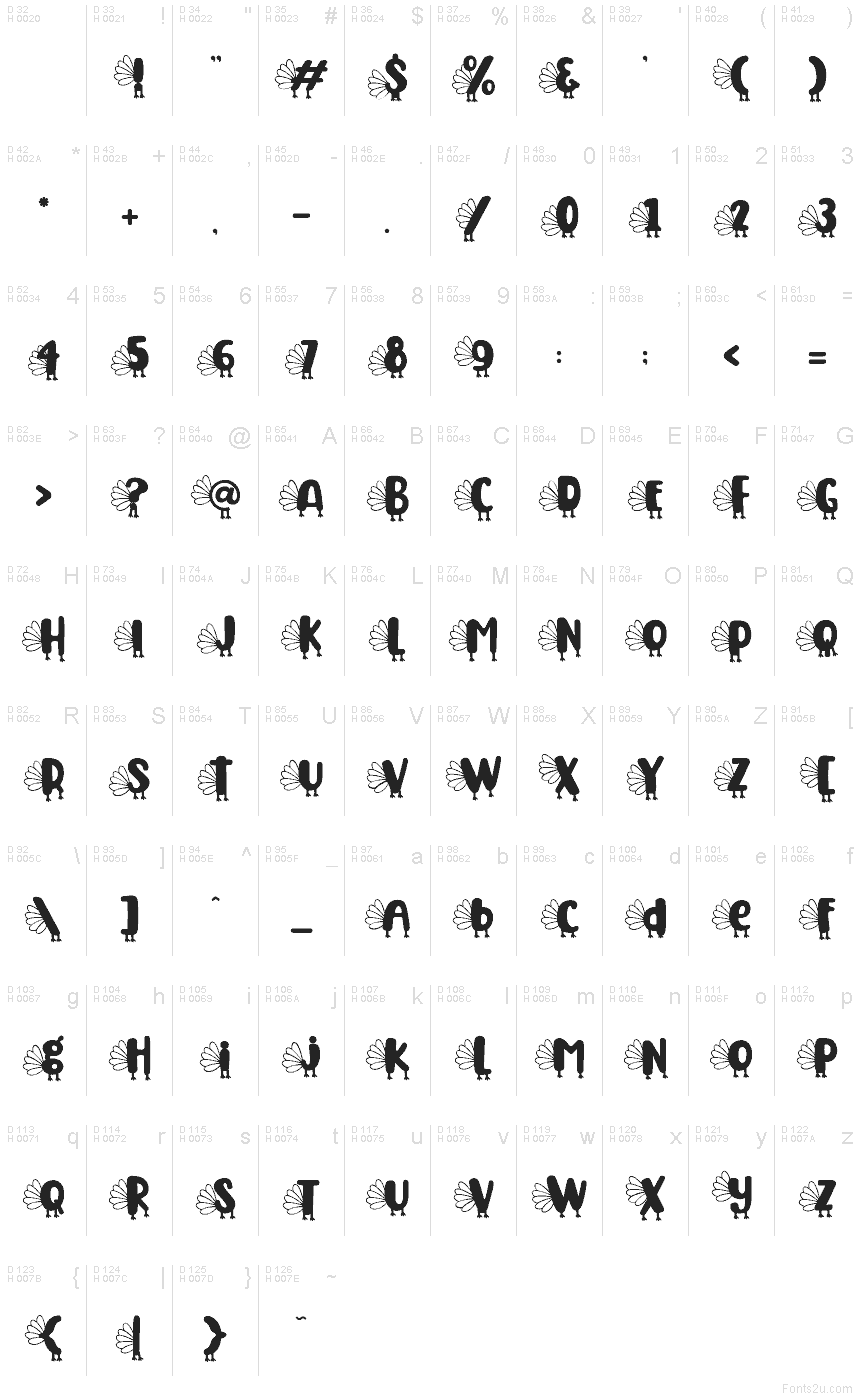
Thanksgiving Joy Turkey Tail
Thanksgiving Joy Turkey Tail font emerges from the creative visions of PutraCetol Studio, showcasing an elegant seasonal flair that is truly awe-inspiring. With its intricate details and themed elements, it is a decorative festive font one can use for all their Thanksgiving-related projects.
Whether it’s greeting cards, invitations, brochures, pamphlets, or artsy website pages; Thanksgiving Joy Turkey Tail works beautifully on each. The free display font may also appear in posters and flyers perhaps displayed at the family dinner table.